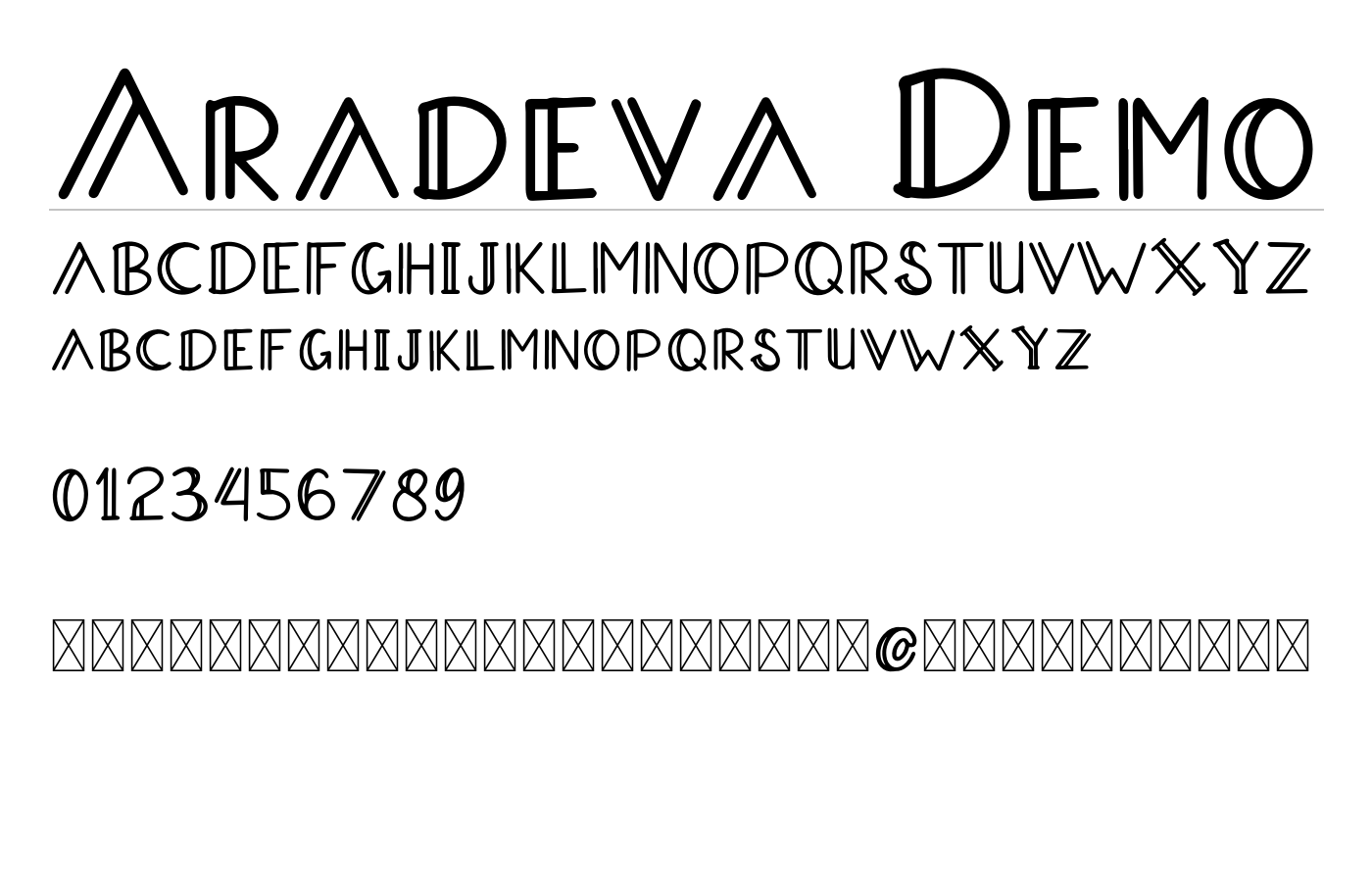
Aradeva Demo is a unique sans serif font characterized by its slender, geometric letterforms with a slightly condensed width and consistent stroke weight. Its clean lines combined with playful, angular details give it a modern yet artistic vibe, making it ideal for creative headlines, logos, and display use where a distinctive, stylish look is desired. This font works well in contemporary branding and editorial projects seeking a bold but approachable personality.
Aradeva Demo Font
About Aradeva Demo Font